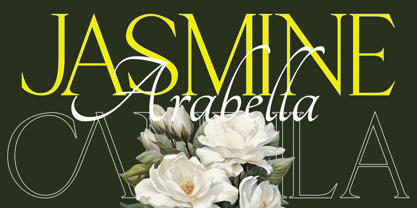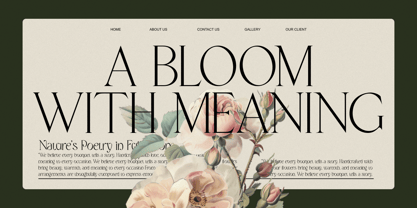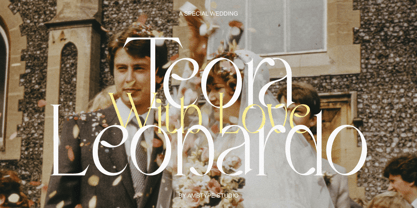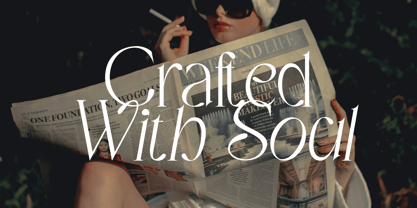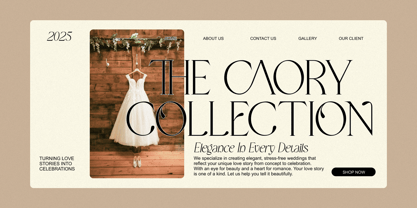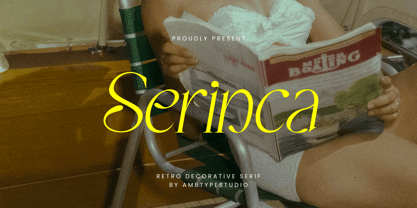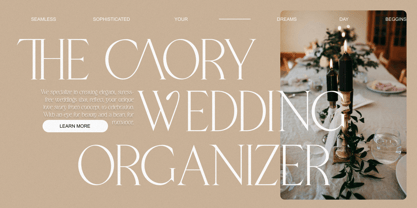
Serinca
by Ambtype Studio
The Serinca Font Family was designed by William Rizky Bahari and published by Ambtype Studio. Serinca contains 2 styles and family package options.
Serinca is a retro decorative serif typeface that blends timeless elegance with playful curves. Its distinctive character lies in the contrast of bold, sweeping strokes and refined terminals making it perfect for projects that crave a touch of vintage charm with modern sophistication.
Whether you're designing for fashion editorials, luxury branding, social media graphics, or wedding invitations, Serinca offers a classy yet eye-catching typographic voice. Each letterform is crafted with personality, delivering both legibility and flair.
• Regular & Italic Versions – Versatile options for a variety of design needs.
• Exquisite Alternates & Ligatures – Add a unique and personalized touch to your designs.
• Multilingual Support